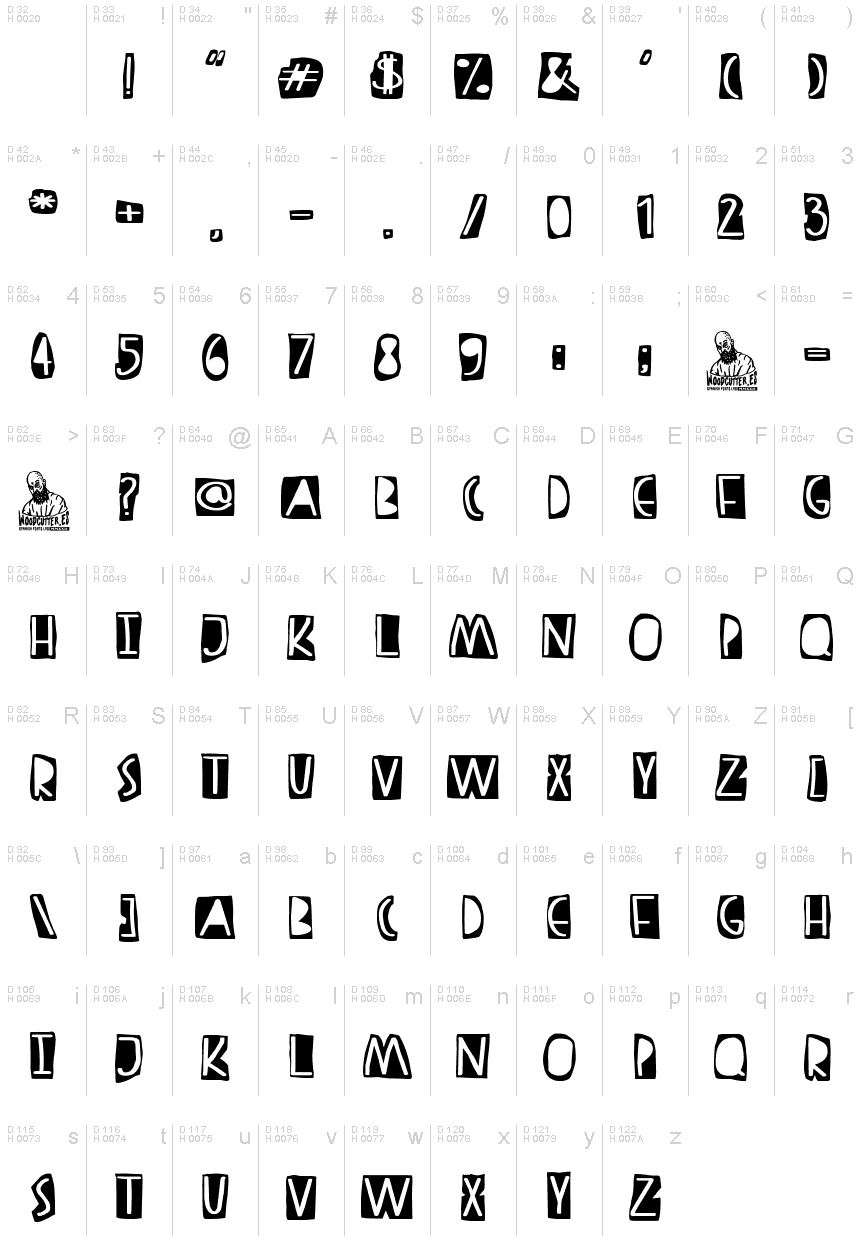
Tarraco Nacional
Tarraco Nacional, designed by Woodcutter, is a unique display font with a decorative flair. Its semi-light weight and negative style make it perfect for eye-catching headlines or attention-grabbing graphics. This font can be used in a variety of projects, from bold branding for fashion companies to elegant invitations for weddings. Tarraco Nacional's intricate details and artistic flair will make any project stand out. Don't settle for ordinary fonts - choose Tarraco Nacional to add that extra touch of creativity to your designs.